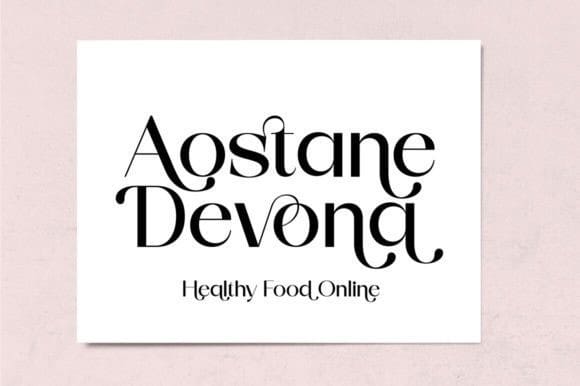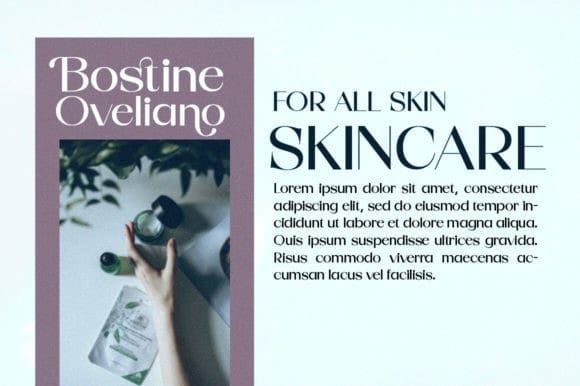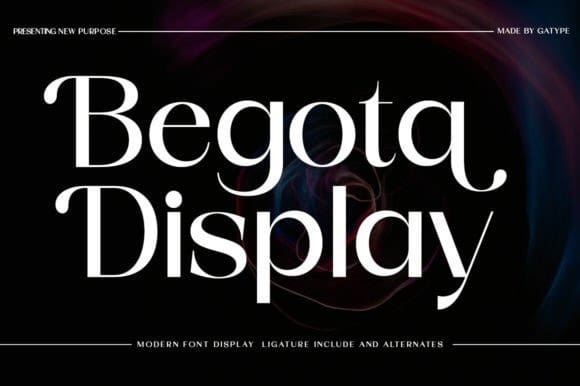
Begota Display Font
Begota Display Font, An elegant font designed when in a creative mood and perfect shape, inspired by the bold, natural look of serifs so beautiful for today’s fashion. bold, balanced, and varied, born for luxury and beauty. including uppercase letters, numbers, and various kinds of punctuation
Begota Display is perfect for invitations, logos & branding, photography, advertising, watermarks, social media posts, product packaging, product designs, labels, wedding designs, stationery, special events, or anything else needed to create a theme.